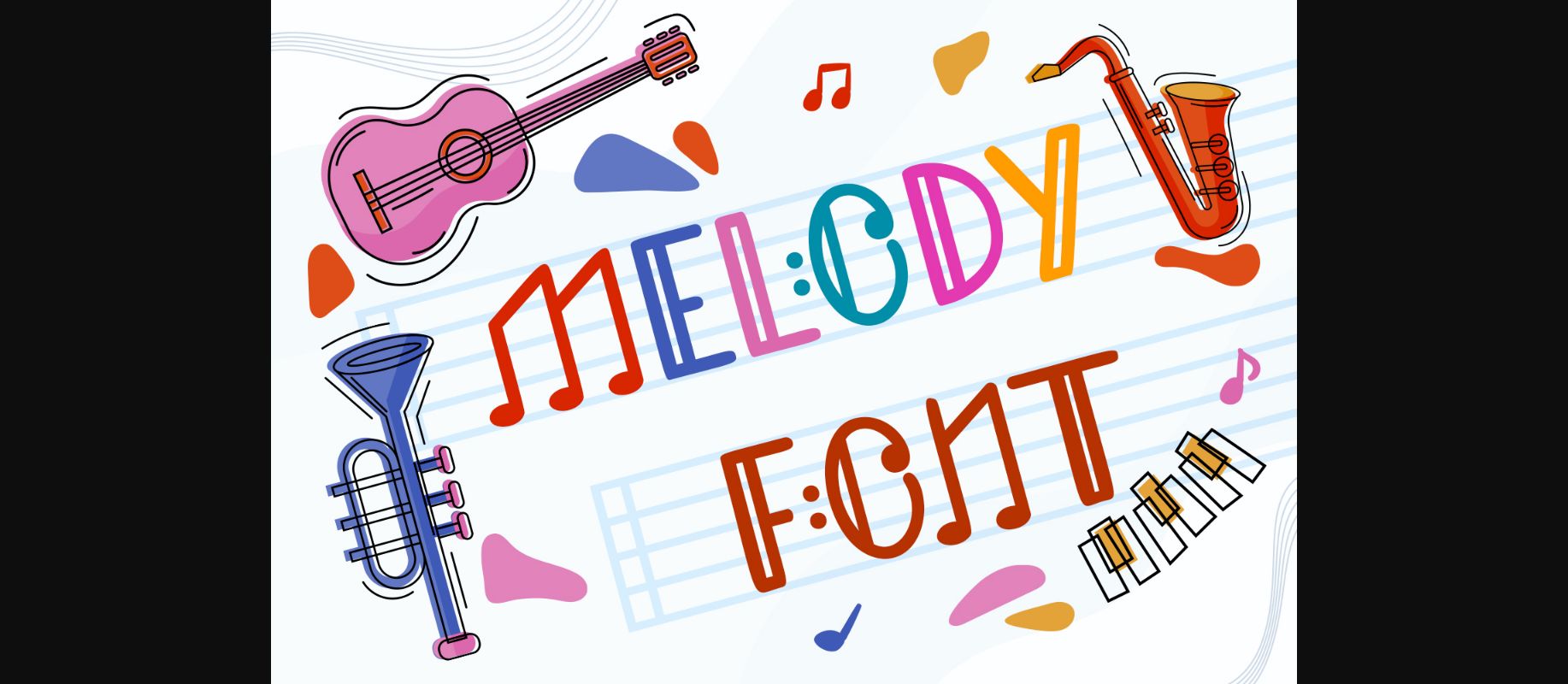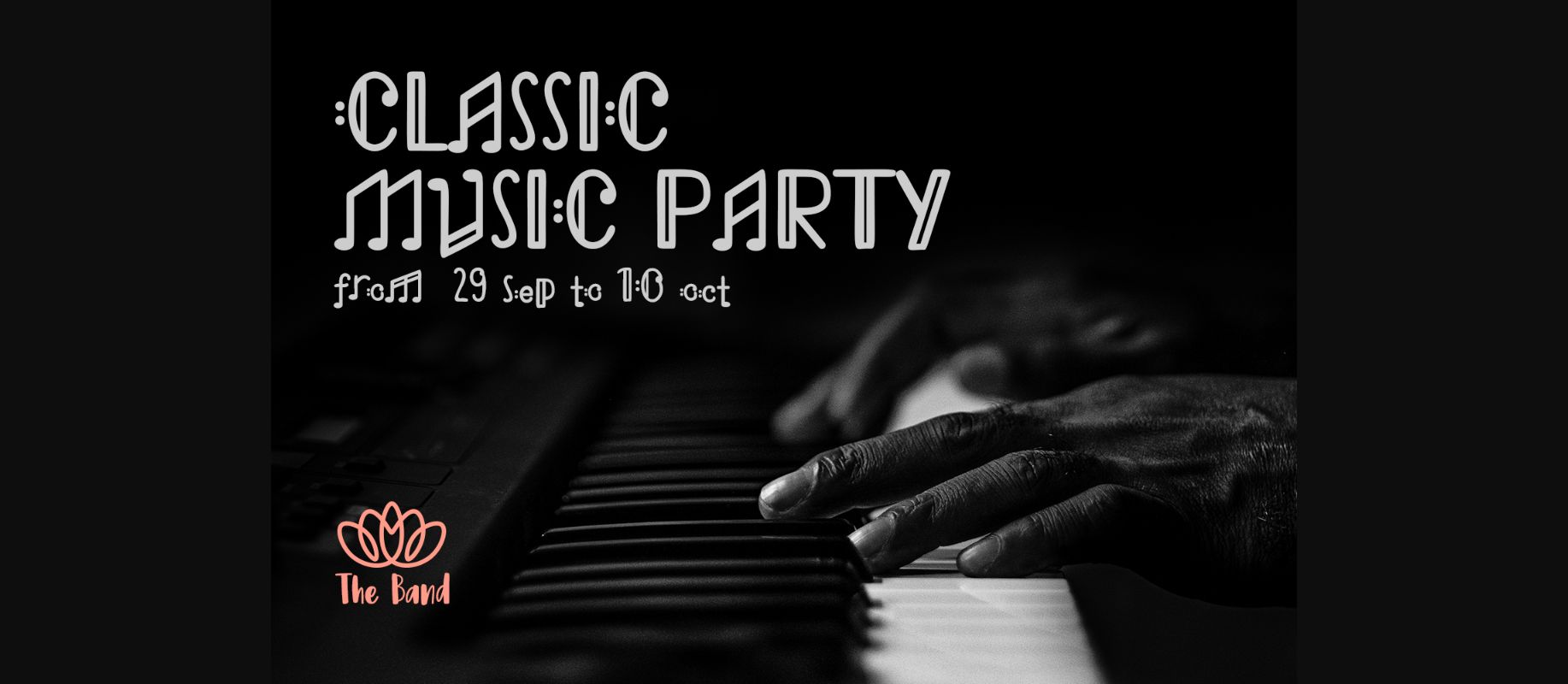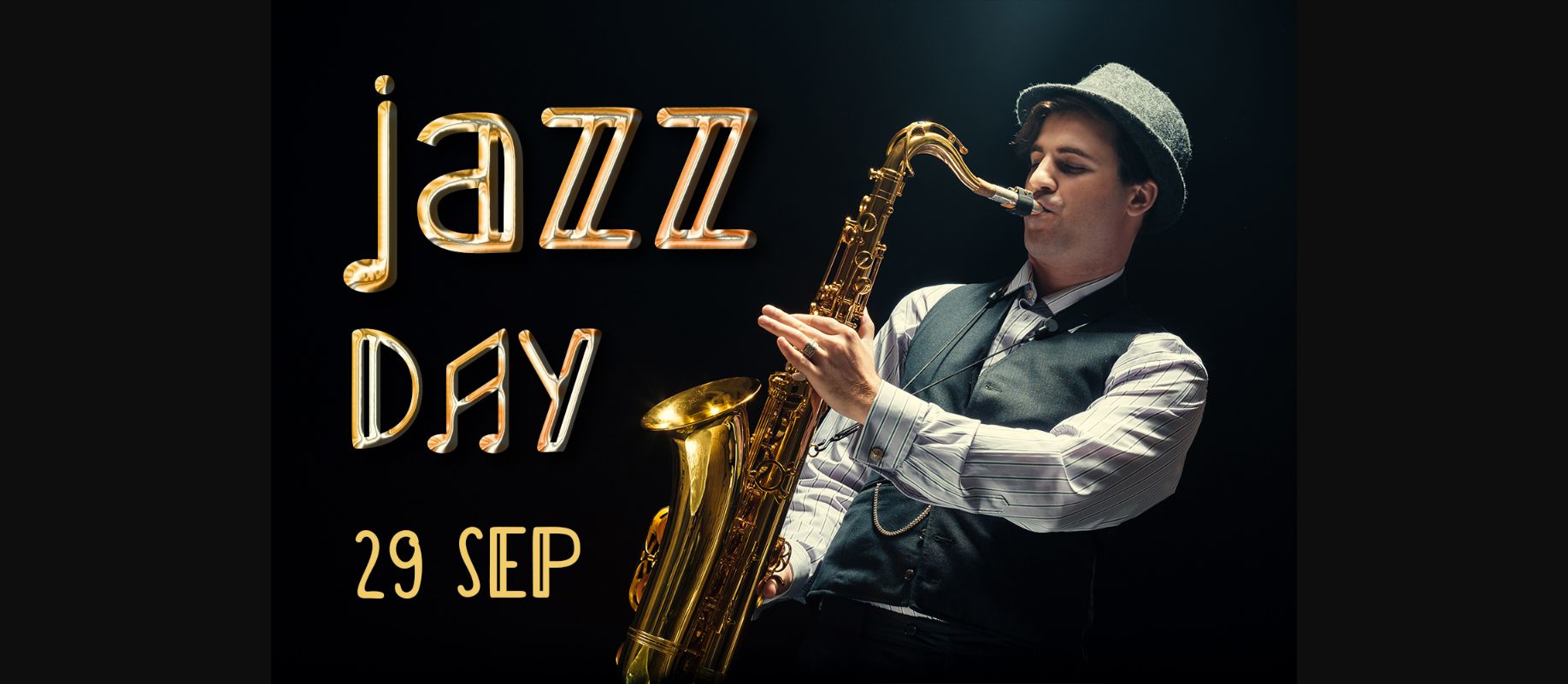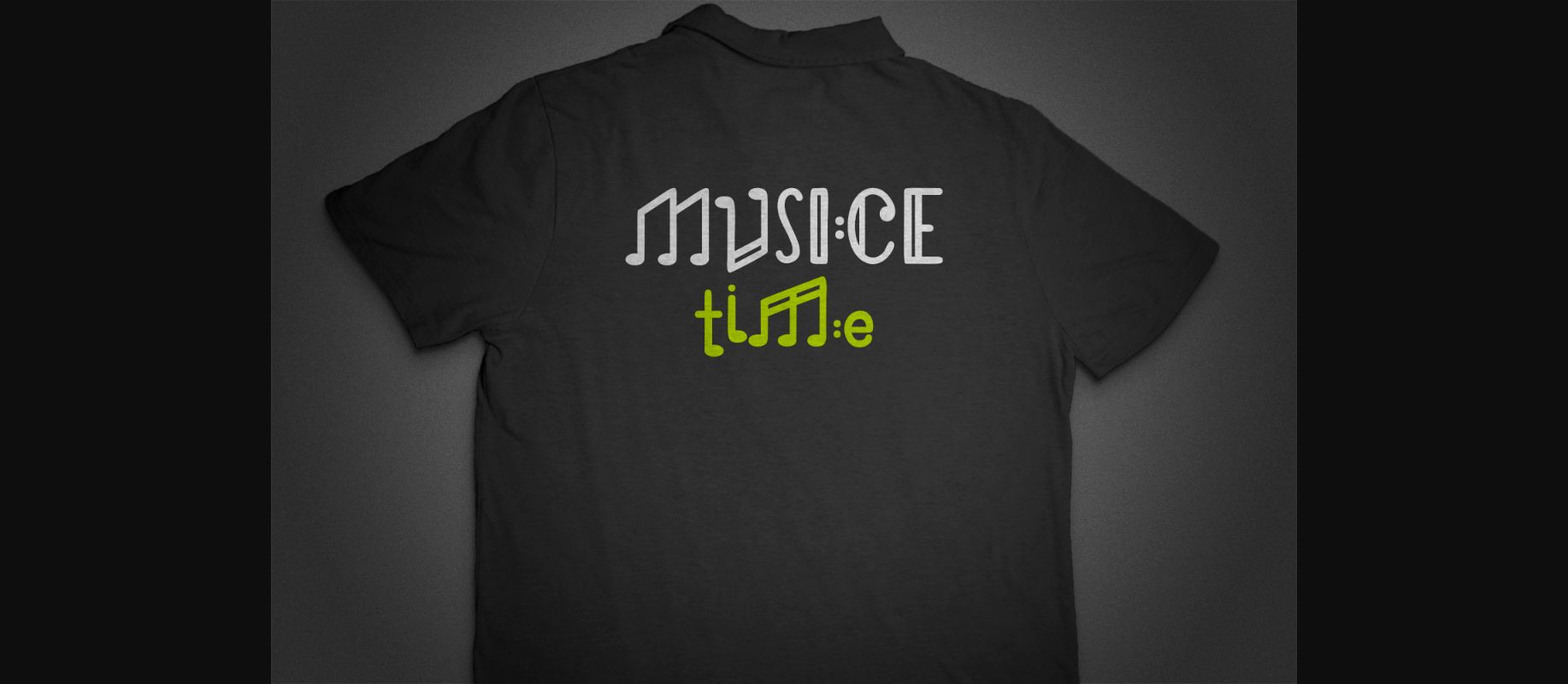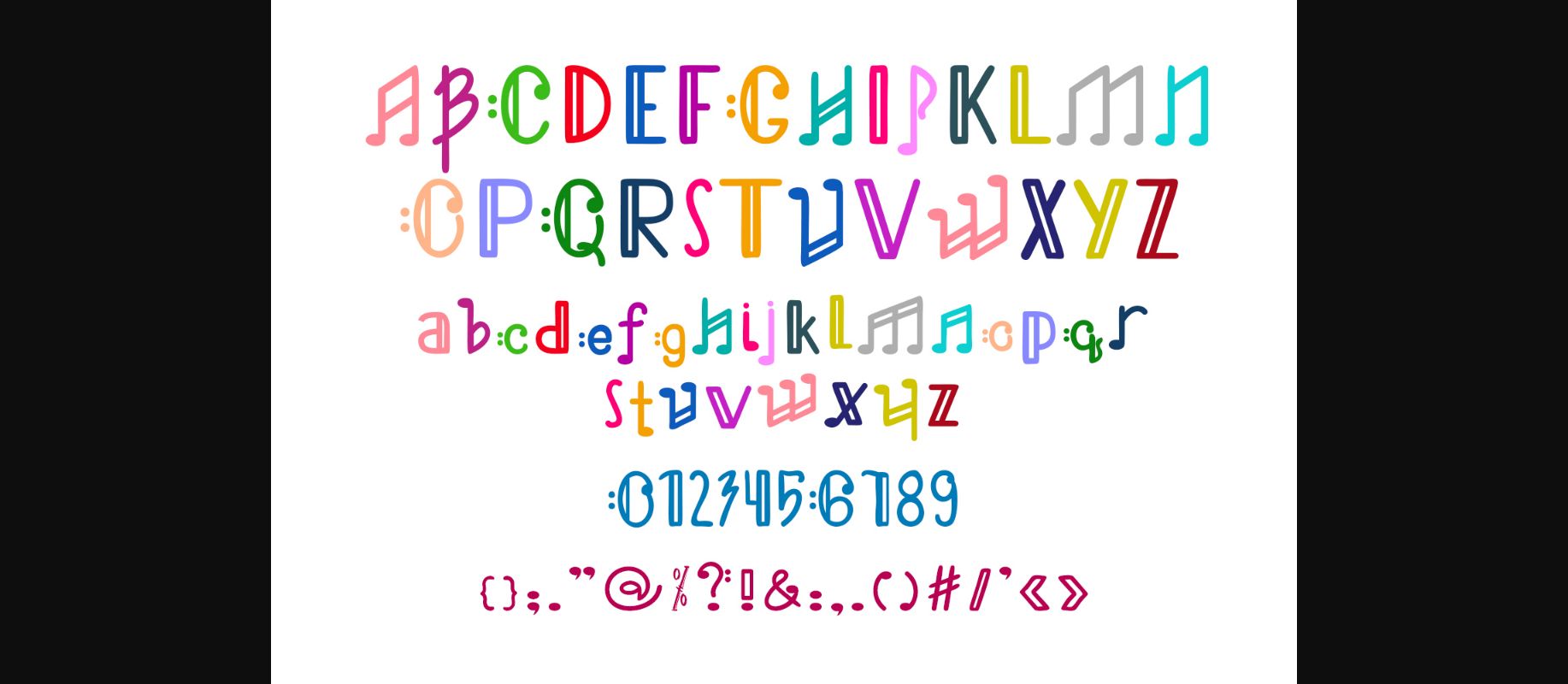
About Melody Font
Melody is a decorative font inspired by musical notes and features an urban artistic vibe. This is a playful font that would be suited for any musical-themed, jazzy design or craft.